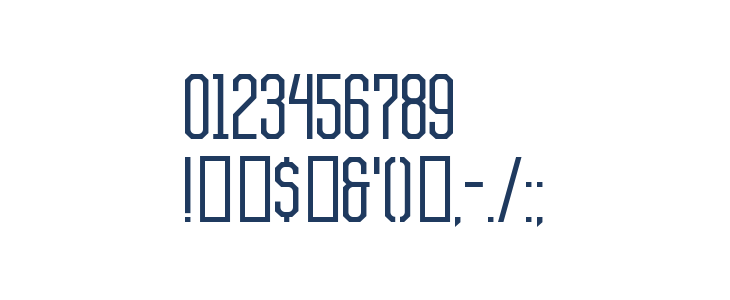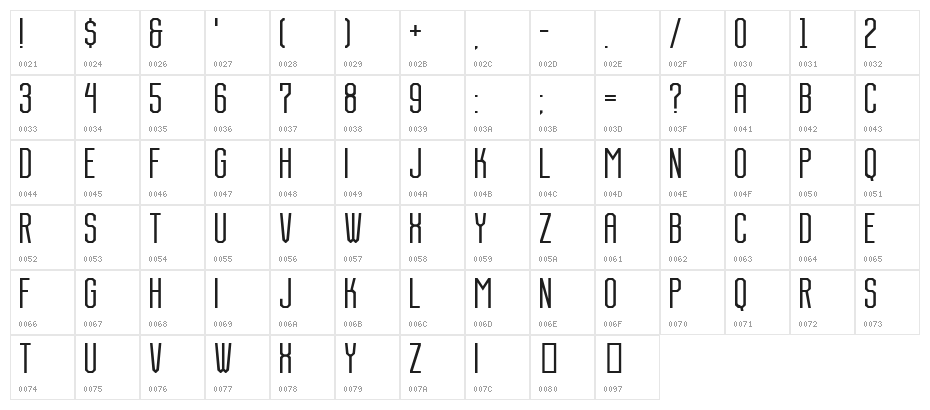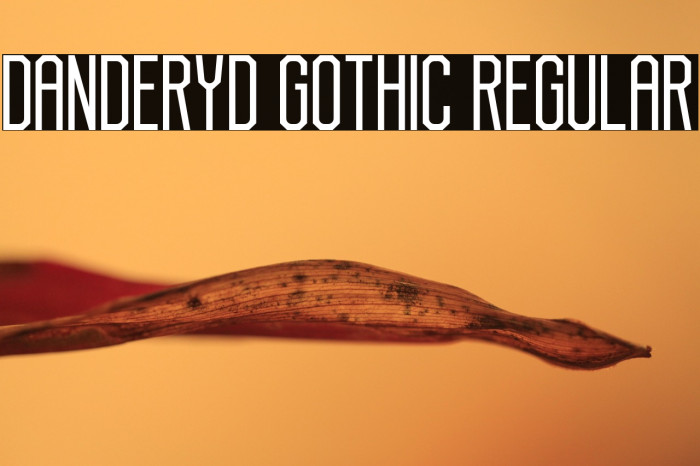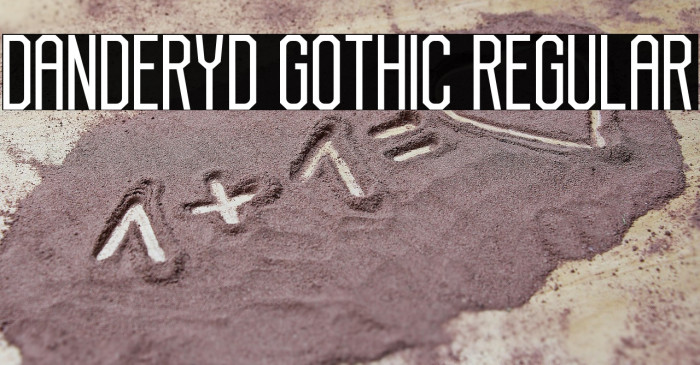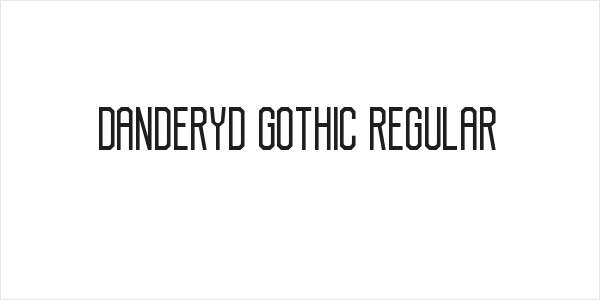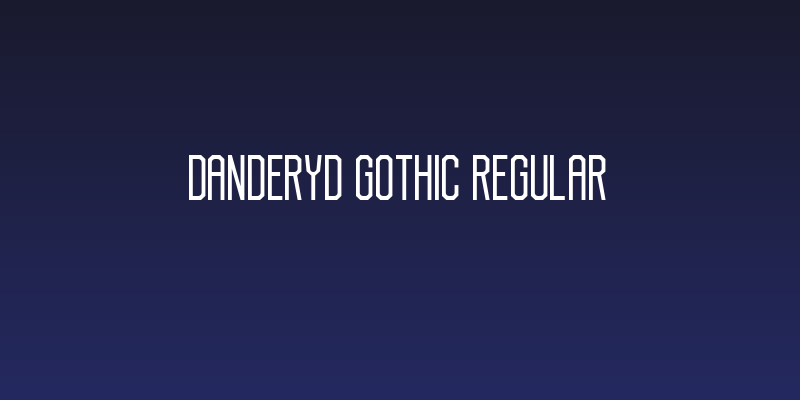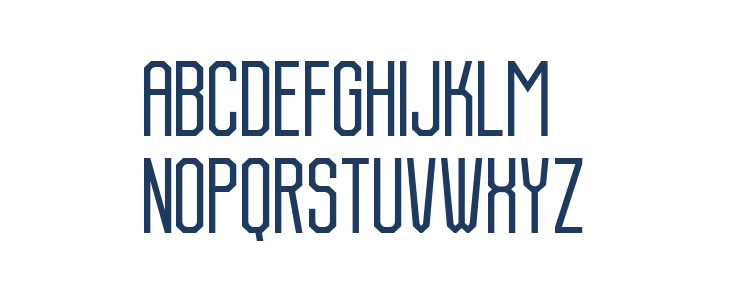
Danderyd Gothic Regular Font
Danderyd Gothic Regular Description
This font features a modern, geometric design with clean lines and a structured appearance. The characters are tall and narrow, giving it a condensed look. The uppercase and lowercase letters maintain a consistent height, contributing to a uniform aesthetic. The numerals and special characters are designed to match the overall style, ensuring a cohesive appearance across all text. The font's simplicity and clarity make it suitable for a variety of applications, from digital interfaces to print media.
| Proposed Projects | Ideal for branding, editorial design, posters, and digital interfaces where a modern and clean look is desired. |